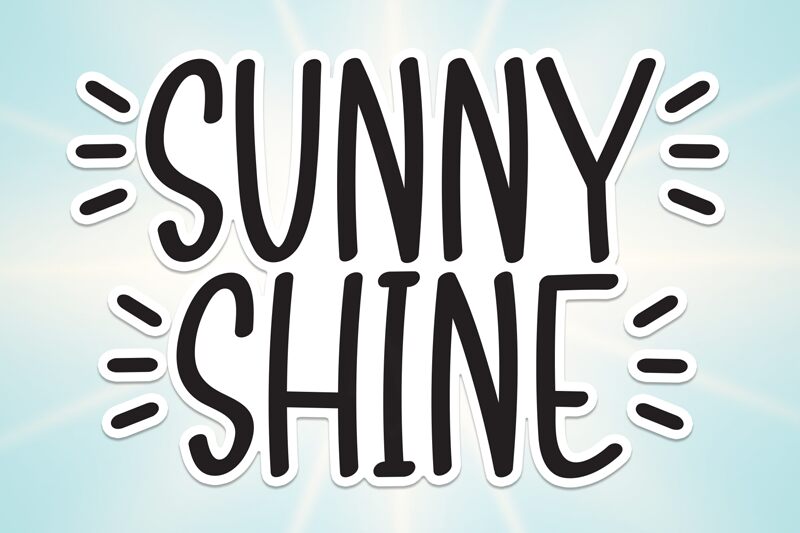
Sunny Shine font designed by Andi Moz is a free script font with a delightful, handwritten feel. It conveys charm, grace, and dynamic elegance with every letter, making it a great choice for raw and unfiltered creative typography projects. The visual aesthetic of this typeface is loose and messy, just like real handwriting would be. Professional copywriters can make the most out of its clean and legible characters, while visual designers will see the possibility of smooth, fluid animations of individual letters.
Sunny Shine is versatile enough to work in all kinds of visual projects. It can serve as the main headline typeface for posters, brochures, flyers, or other print ads or be used as a body font for long-form content such as websites. It can also work well with branding projects, like the creation of logos, prints in stationery, and typography in packaging.
This is a sweet and friendly handwritten display font. Cute and fun, this font is perfect for writing wedding invitations, cards, or any design project that needs a playful touch.